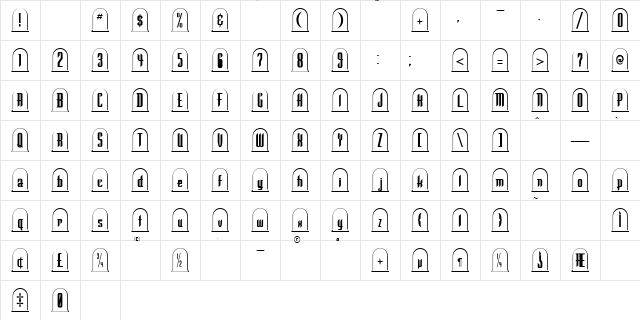
Graveyard Regular Free Font
Graveyard Regular
Graveyard Family
Complete Graveyard Regular glyph index. Displaying only characters natively supported by Graveyard Regular font.
Design Context for Graveyard
Graveyard is a composed and adaptable typeface that performs quietly and consistently across a wide range of design contexts.